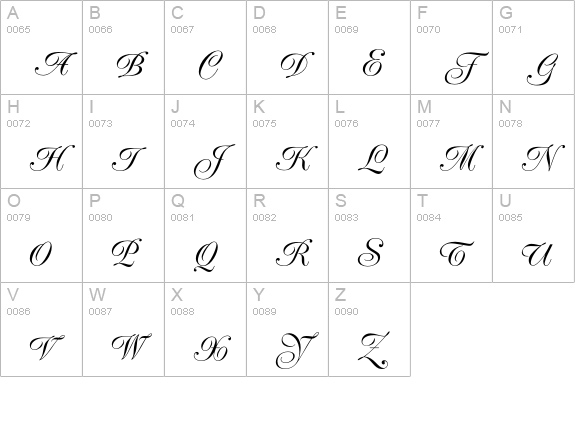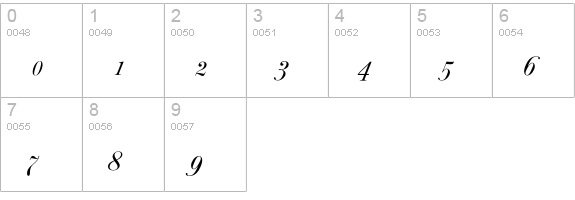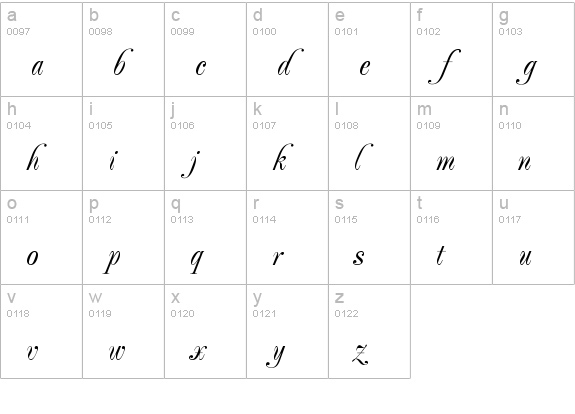
PeachExquisiteOpti-Light Font Details
PeachExquisiteOpti-Light is a refined, elegant variant in the PeachExquisiteOpti typeface family \xE2\x80\x94 well suited to elegant body text, refined sub-headings, and luxury branding.
Introducing PeachExquisiteOpti-Light, a font that effortlessly embraces elegance and sophistication. Designed with meticulous attention to detail, this font exudes a timeless charm that adds a touch of refinement to any project it graces. PeachExquisiteOpti-Light features delicate, slender letterforms that are meticulously crafted to create a sense of lightness and grace. Its clean lines and subtle curves create a harmonious balance, making it perfect for projects that require a gentle yet powerful visual impact. With its versatile nature, PeachExquisiteOpti-Light is an excellent choice for a wide range of design applications. Whether you're working on branding, packaging, invitations, or editorial design, this font will effortlessly elevate your creations to new heights. One of the most remarkable aspects of PeachExquisiteOpti-Light is that it is freely available to download at FontsMarket.com. This means that you can easily access this exquisite font and integrate it into your projects without any hesitation. The creators of PeachExquisiteOpti-Light believe in the power of creative expression and want to make sure that everyone has the opportunity to experience the beauty and versatility of this font. So, if you're looking to add a touch of elegance and sophistication to your designs, look no further than PeachExquisiteOpti-Light. With its timeless charm and freely accessible availability at FontsMarket.com, this font is a must-have for any designer or creative enthusiast. Embrace the beauty of PeachExquisiteOpti-Light and watch as your projects come to life with a touch of exquisite finesse.